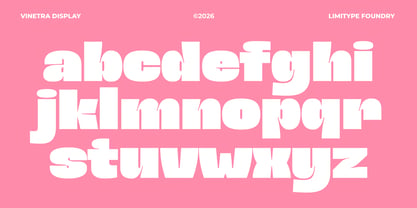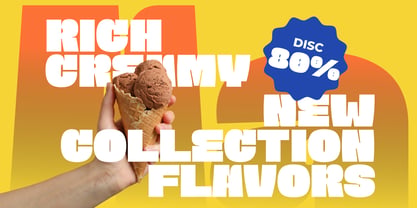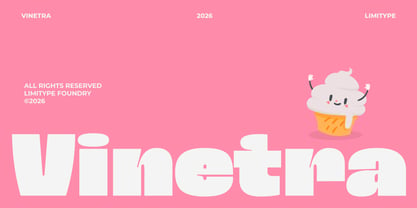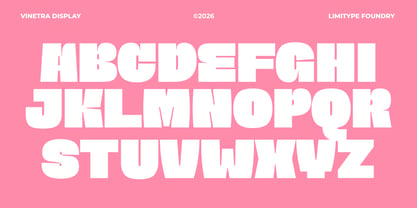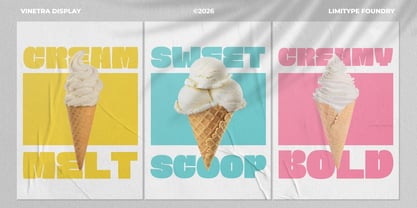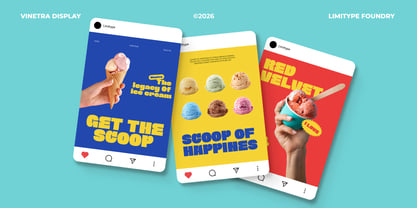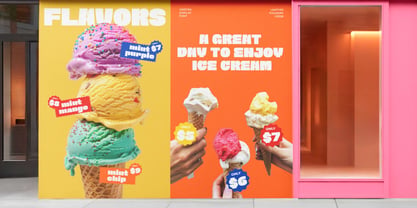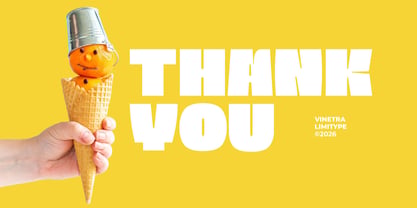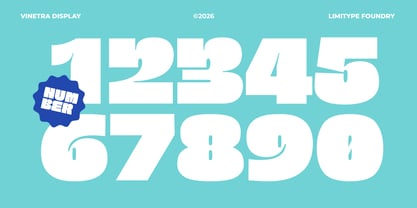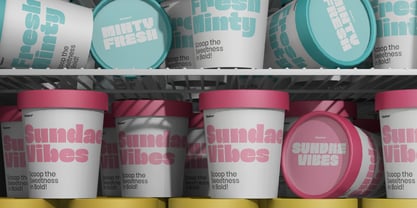
Vinetra
La familia tipográfica Vinetra fue diseñada por Ridwan Fadilah, Muhammad Muammar y publicada por limitype. Vinetra contiene 1 estilos. Más información sobre esta familia
Vinetra is a bold display font with unique shapes and a striking retro modern aesthetic, designed to create a strong visual impact. Its distinctive character makes it highly suitable for branding, logos, posters, headlines, as well as creative visual identities that demand attention and stand out across both digital and print designs. Vinetra available with: Uppercase Lowercase Number Symbol Multilingual